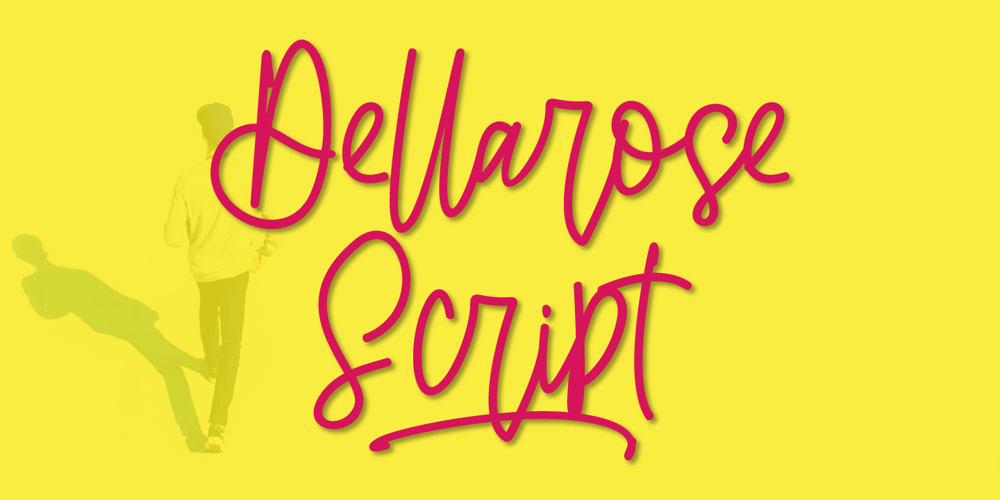
Dellarose
Dellarose font
Dellarose Font Family was designed by Fajriadi and published by Masinong Studio. Dellarose contains 1 styles and family package options. Dellarose Script is a new fresh and modern script with a handmade calligraphy style, decorative characters and a dancing baseline. So beautiful on invitation like greeting cards, branding materials, business cards, quotes, posters, and more.Dellarose Script come with 300 glyphs. The alternative characters were divided into several OpenType features such as Swash, Stylistic Sets, Stylistic Alternates, Contextual Alternates, and Ligature. The OpenType features can be accessed by using Open Type savvy programs such as Adobe Illustrator, Adobe InDesign, Adobe Photoshop Corel Draw X version, And Microsoft Word. And this Font has given PUA unicode (specially coded fonts) so that all the alternate characters can easily be accessed in full by a craftsman or designer.Dellarose Script Features :Uppercase and Lowercase, International Languange, Symbols, Punctuation, Number PUA Unicode Range Standard Ligatures, Discretionary Ligatures, Stylistic Alternates Stylistic Set 1-2 Character ,Variant Contextual Swash Bonus.If you don’t have a program that supports OpenType features such as Adobe Illustrator and CorelDraw X versions, you can access all the alternate glyphs using Font Book (Mac) or Character Map (Windows).If you have any question, don’t hesitate to contact me by email masinong.studio@gmail.com